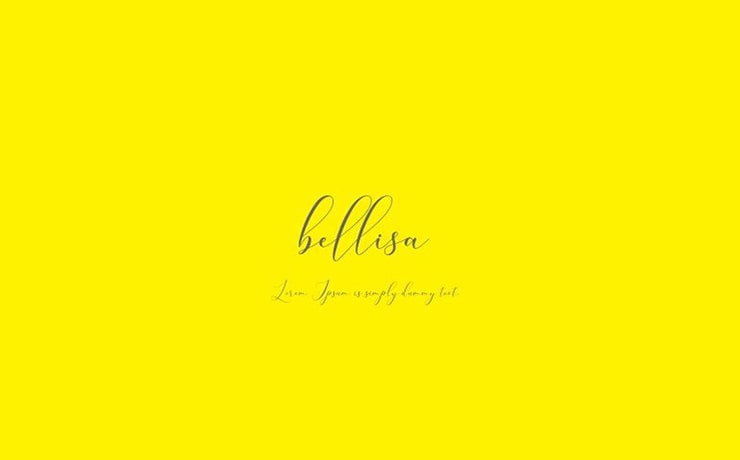
Bellisa Font is a script calligraphic typeface with extra curved details and stylish scripts. The uniformity of this font style looks disciplined and very attractive when put all together.
The design is unique in that the designer adds extra curves and makes it even more beautiful. While it did not lay a proper foundation in the whole structure.
It is made with slim and bold strokes and also the designer has put swashes throughout the typeface. These swashes make it sweeter.
With this majestic font help, you can create covers, posters, emblems, game graphics, product designs, special event cards, t-shirt printing, banner ads, special quotes, titles, flyers, banners, posters, quotes, as well as many other purposes.
There is only one style including regular along with True Type file format. This font includes uppercase & lowercase characters, alternatives, swashes, etc.